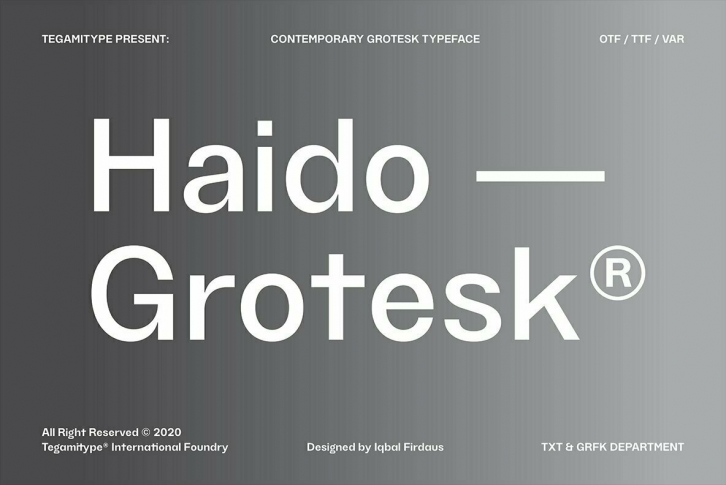
Haido is a new contemporary Grotesk typeface influenced by the post-modernism style. This typeface is has a very neutral look, thus making this new typeface has versatility for use in all kinds of modern design. Haido comes with 18 Styles including 9 Weight, italic, and variables font. The small detail of ink trap in this typeface, making Haido is has high legibility in small size and very useful especially for printing needs. And last but not least, Haido has several alternates characters, ligatures and covered more than 100 languages including 2 script Latin and Cyrillic.